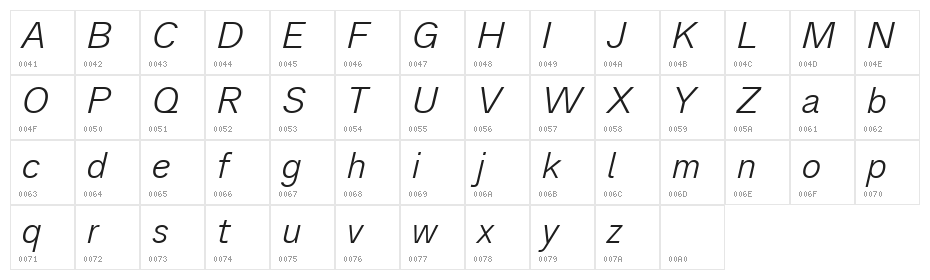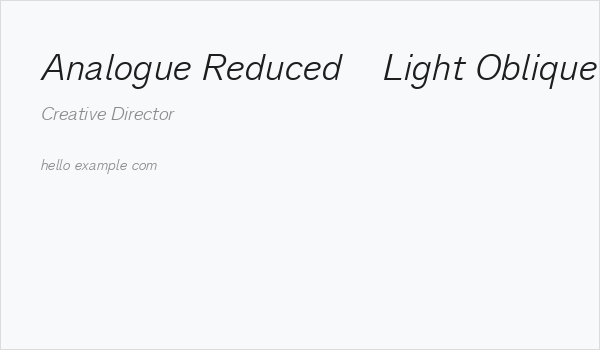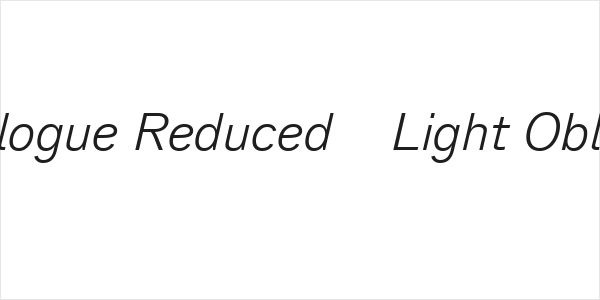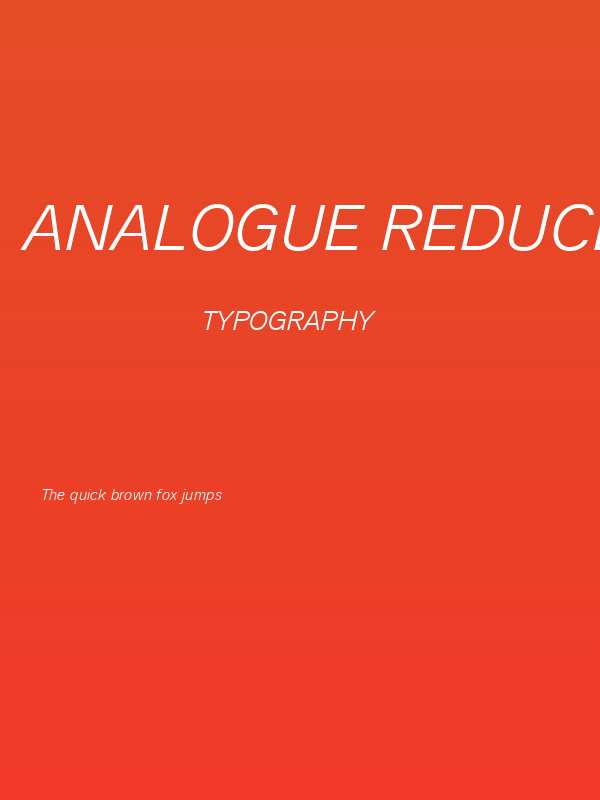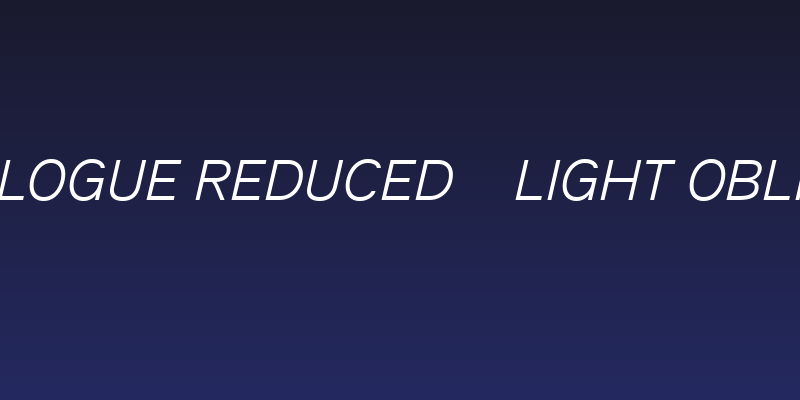
Analogue Reduced 46 Light Oblique Font
Analogue Reduced 46 Light Oblique Description
This font features a sleek and modern design with oblique characters that give it a dynamic and forward-leaning appearance. The letters are crafted with a light weight, providing an airy and elegant feel. The sans-serif style ensures clean lines and a minimalist aesthetic, making it highly versatile for various design applications. The character spacing is normal, allowing for readability while maintaining a sophisticated look. The font's low contrast in stroke thickness adds to its contemporary appeal, making it suitable for both digital and print media.
| Proposed Projects | Ideal for branding, advertising, modern web design, and editorial layouts. |